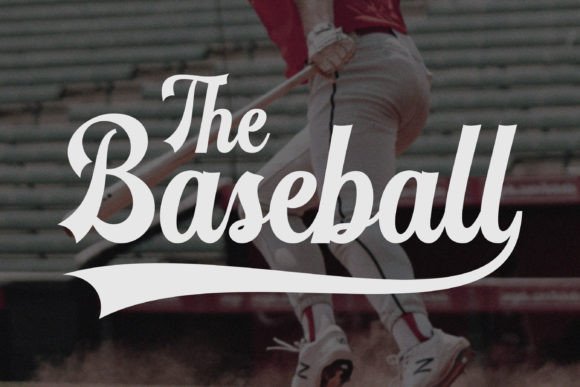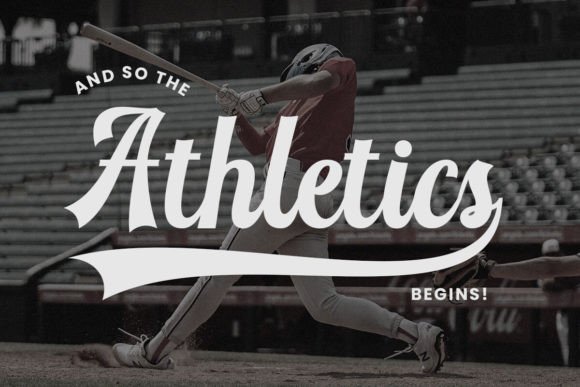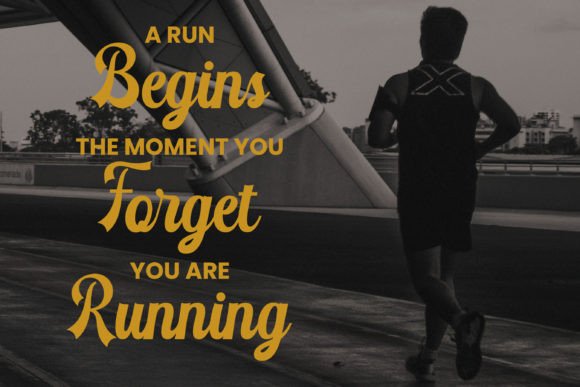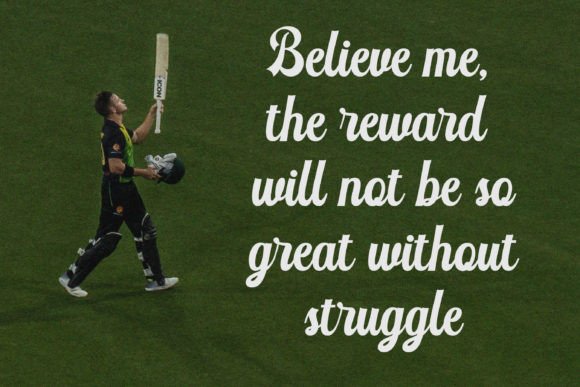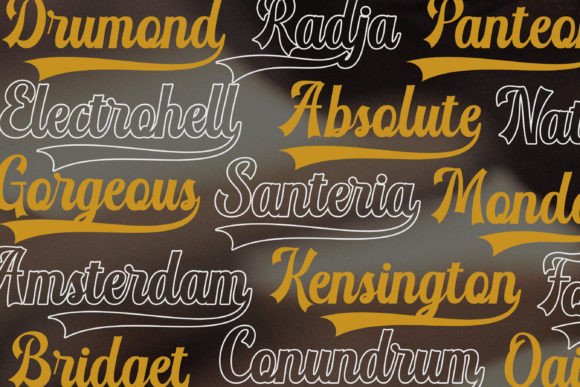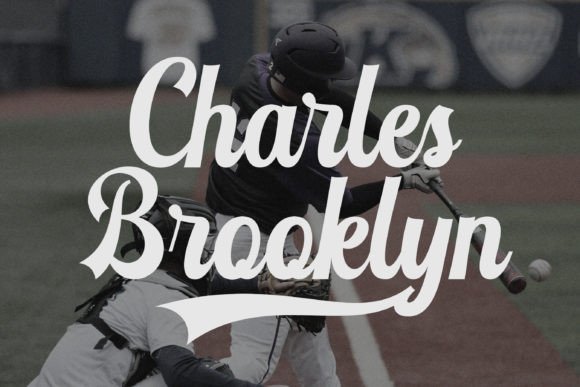
Introduction to Detourne Font
As designers, we’ve all been there – staring at a blank canvas, trying to bring a creative project to life. But sometimes, all it takes is the right design element to spark inspiration. For sports branding enthusiasts and designers looking to add a touch of nostalgia to their projects, we’re excited to introduce the “Detourne Font”. This stylish, retro-style script font is a game-changer, bringing the timeless elegance of baseball to your designs.
With its fluid letterforms and charming aesthetic, Detourne Font is perfect for sports branding, team jerseys, promotional materials, and more. Whether you’re working on a high-quality design resource or need a free download for a quick project, Detourne Font is a valuable addition to your design toolkit. Its transparent background and high-quality design make it a must-have for any designer looking to add a touch of vintage charm to their work.
Key Features of Detourne Font
- Unique and Creative Design: The Detourne Font offers a distinctive and creative design that can add a touch of sophistication to any project.
- Transparent Background: The Detourne Font features a transparent background, allowing designers to easily overlay the font on various images or backgrounds.
- High-Quality Design Resource: With its high-quality design, the Detourne Font is an excellent resource for designers working on creative projects.
- Perfect for Creative Projects: The Detourne Font is an ideal choice for designers working on creative projects, including graphic design, typography, and digital art.
Honest Review: Detourne Font
I recently stumbled upon the Detourne Font, and I must say, it’s been a game-changer for my creative projects. The high-quality design resource is perfect for those who want to add a touch of sophistication to their work.
What works well: ✨ The font is highly customizable, making it easy to adjust to your design needs. I also appreciate the transparent background, which allows for seamless integration with other design elements. The free download is a definite plus, especially for smaller design projects.
The font offers a wide range of styles, from modern to vintage, making it suitable for various design applications. Here are some of its key features:
- High-quality design with detailed typography
- Customizable and versatile font styles
Limitations: ⚠️ While the Detourne Font is an excellent resource, I’ve noticed that it may not be suitable for very small-scale projects due to its complexity. Additionally, some users may find the font’s customization options overwhelming.
Overall, I’m thoroughly impressed with the Detourne Font, and I would highly recommend it to anyone looking for a high-quality design resource for their creative project.
For the most out of the Detourne Font, use it in combination with other design elements, such as shapes and icons. You can also experiment with different font sizes and styles to create visually appealing designs. The transparent background feature allows for seamless integration with other design elements.
The Detourne Font is perfect for various creative projects, including logos, social media graphics, presentations, and documents. Its high-quality design and transparent background feature make it an excellent resource for designers and non-designers alike.